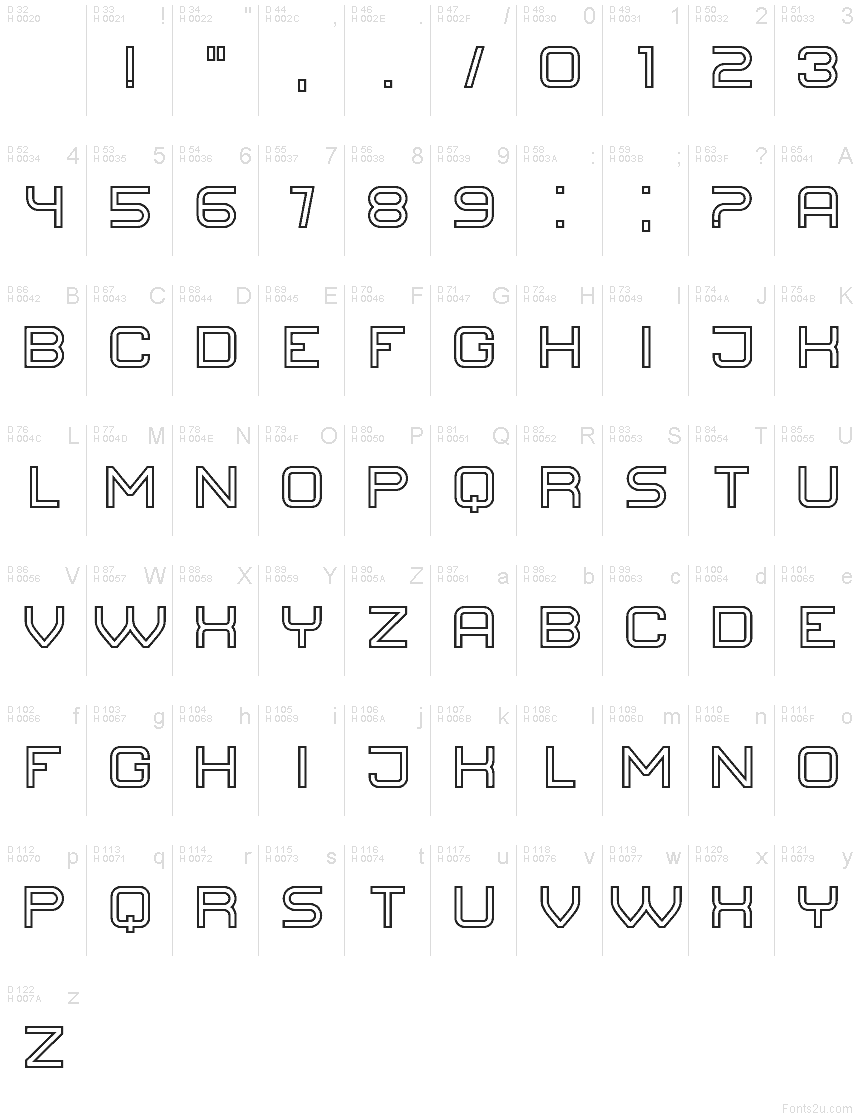
Athletic Shirt Hollow Regular
Athletic Shirt Hollow font is a free futuristic and geometric sans serif font designed by Vladimir Nikolic. It’s expanded and outlined with very specific letters while some glyphs are made of several sub-shapes. The artist opted for incorporating triangles, circles, and horizontal as well as vertical lines in their work.